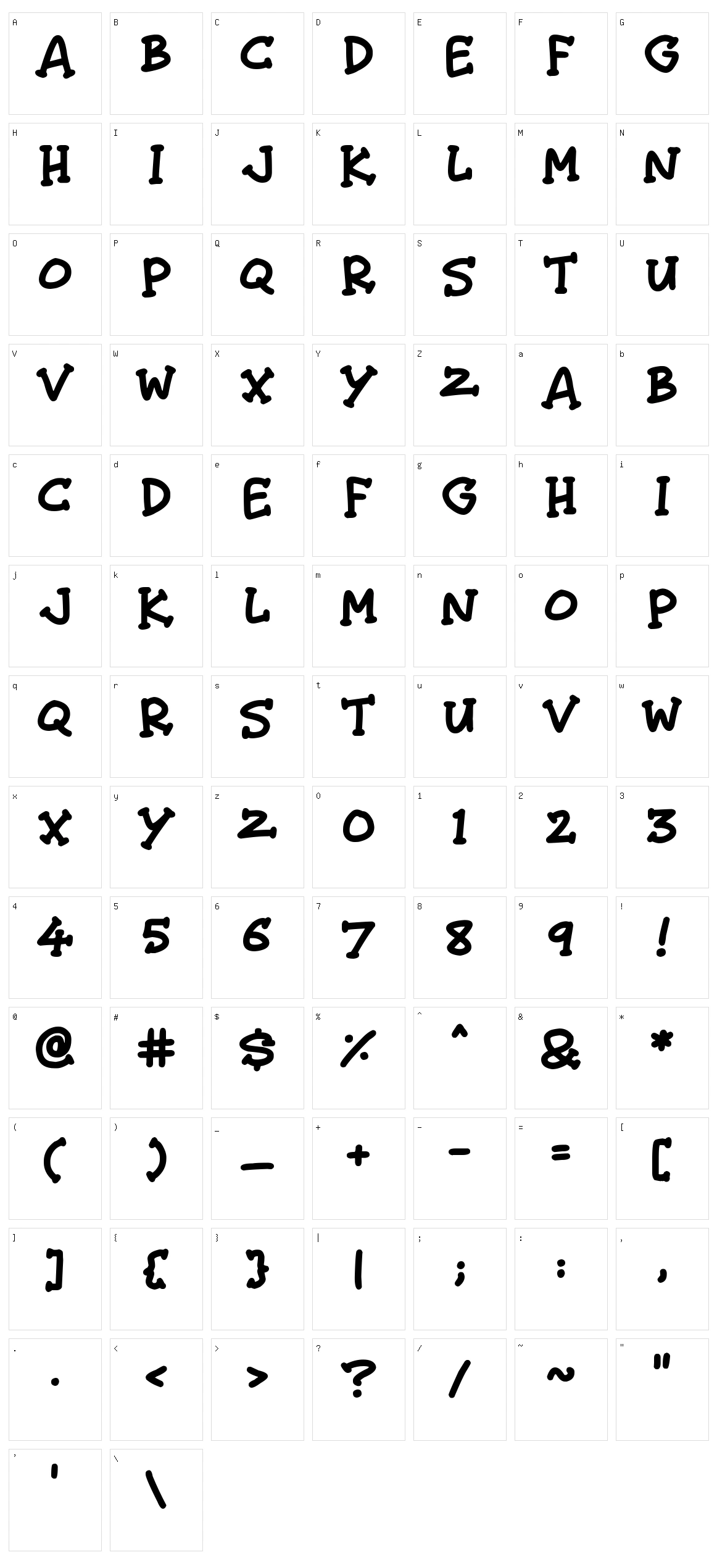
The free font Shenanigans is carefully designed by Hawtpixel, showcasing a thoughtful balance of creativity and usability and falls under the Cartoon font style. When you download the ZIP file, it contains only 85.07 KB of font files, making it lightweight and quick to download. Please review the license details below to understand permitted usage and distribution rights. If license information is not available, we recommend using this font for personal projects only or contacting the author directly for commercial usage permissions.